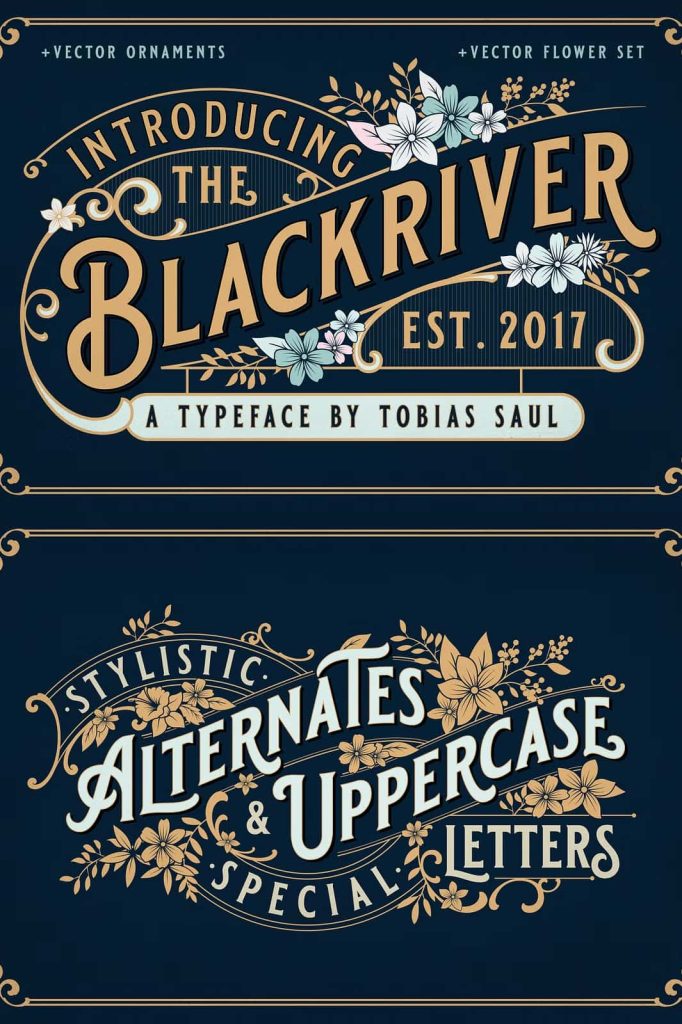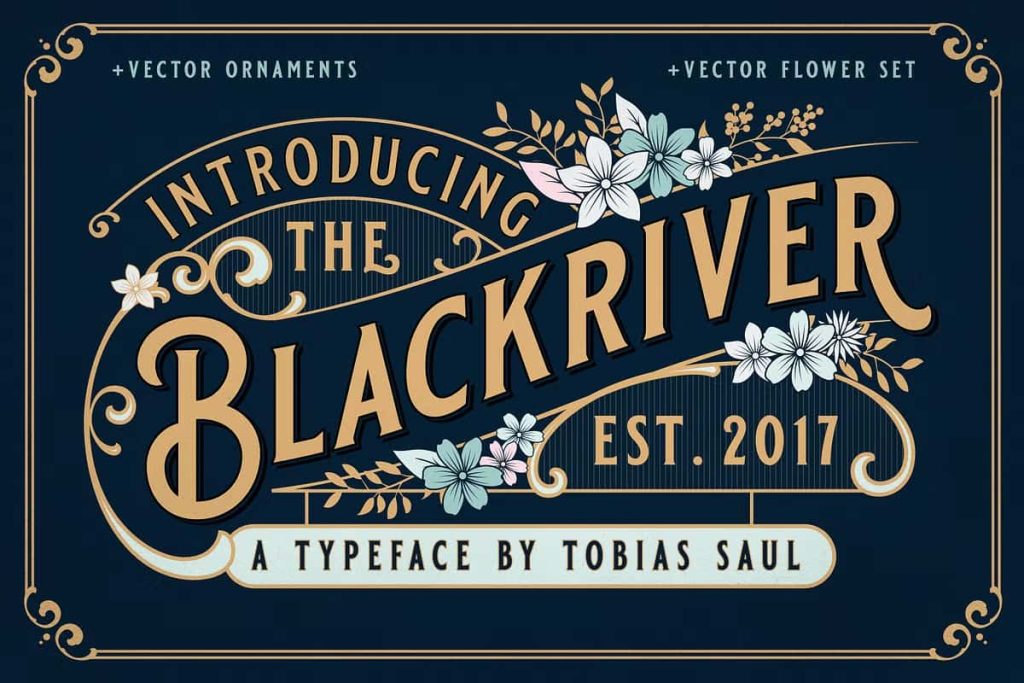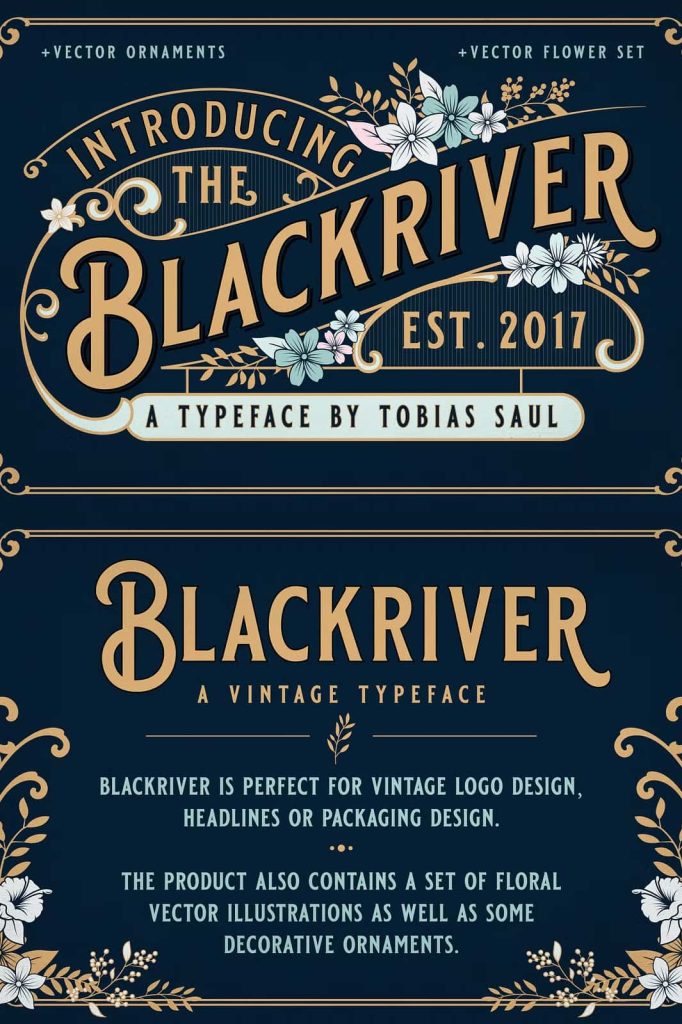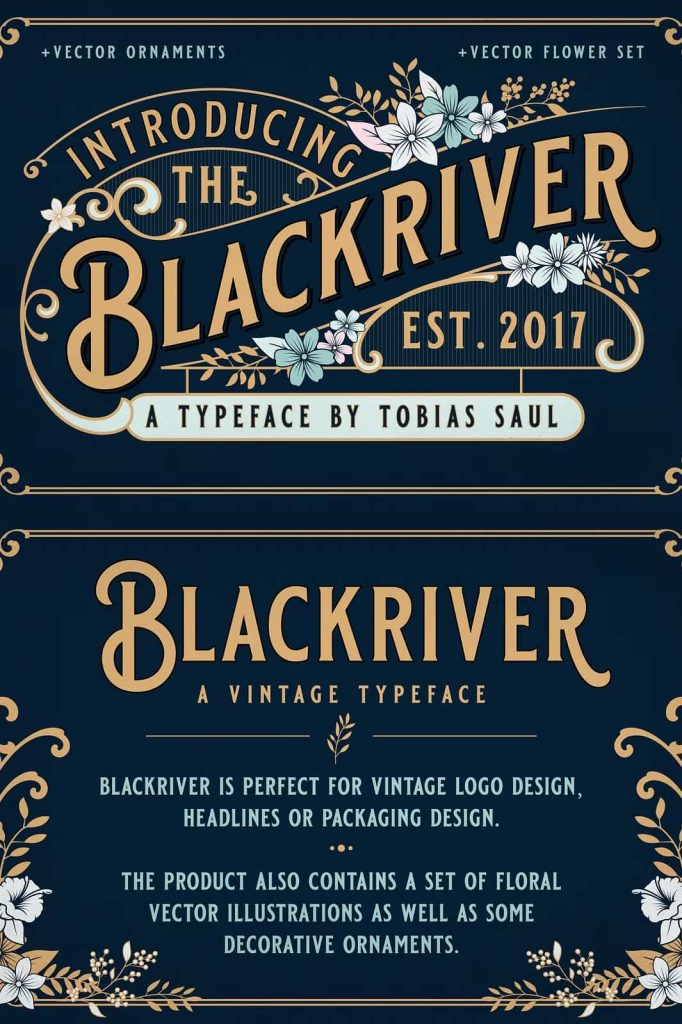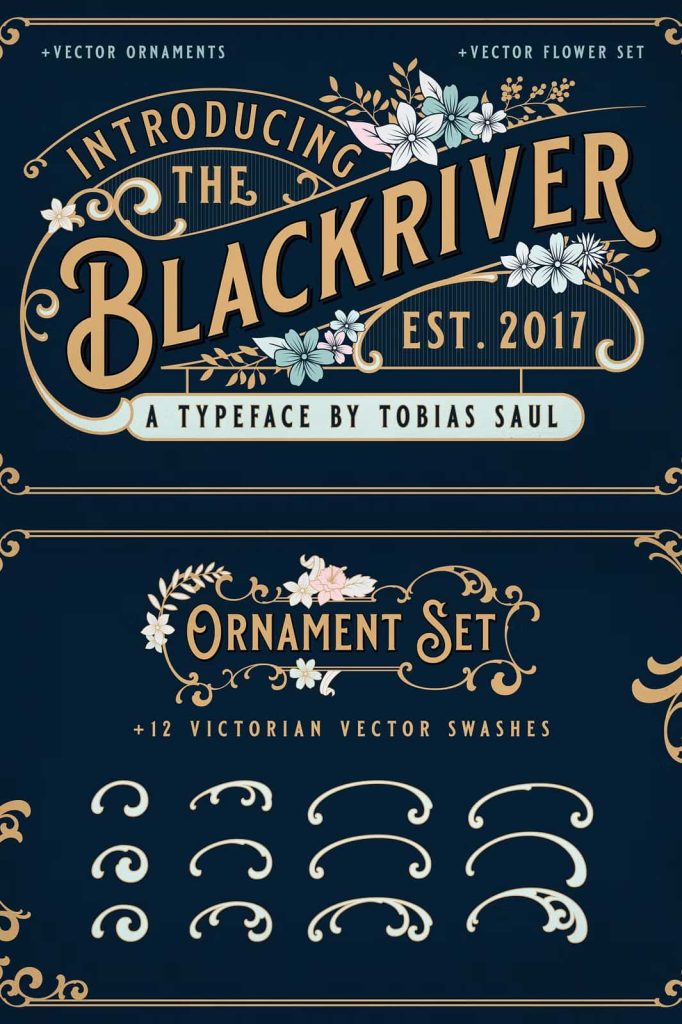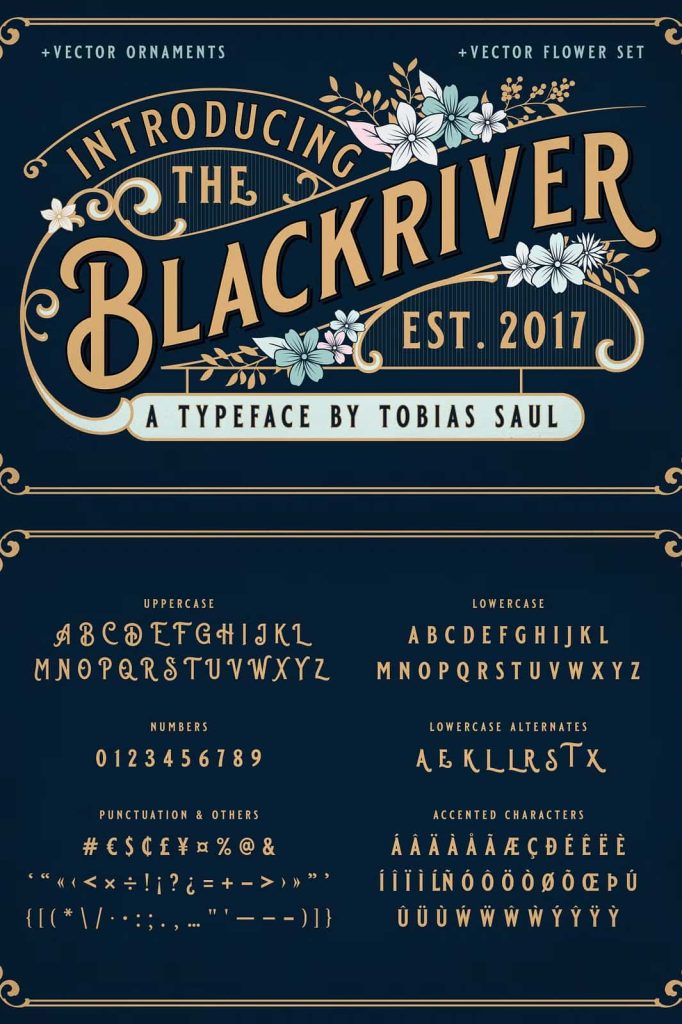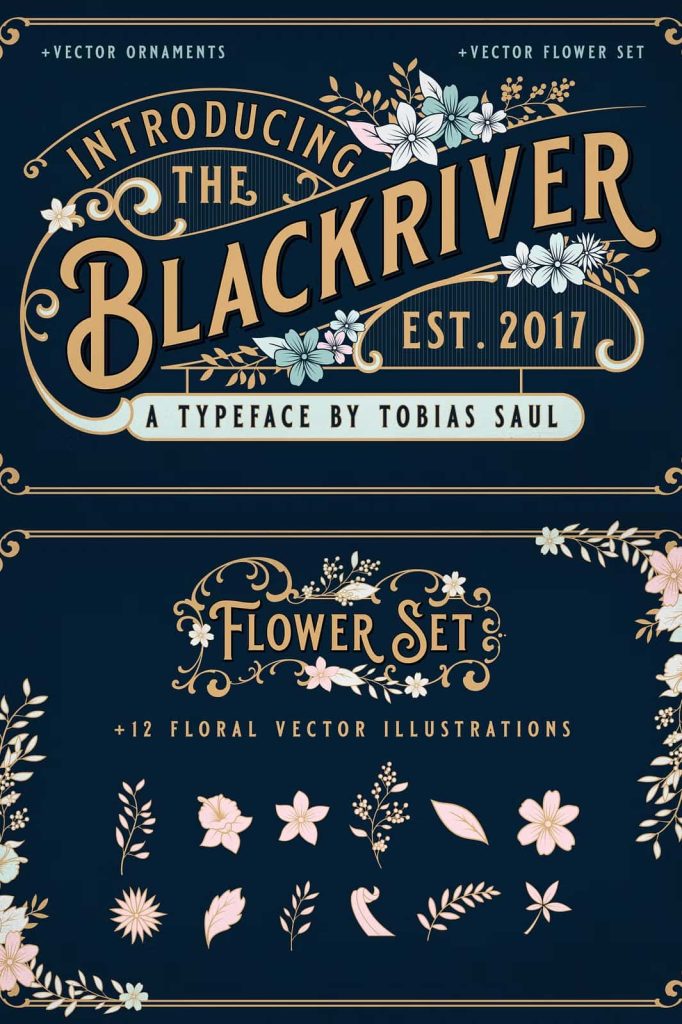
Blackriver is a Vintage Font inspired by vintage packaging and advertising from the early 20th century. It is perfect for vintage logo design, headlines or packaging design.